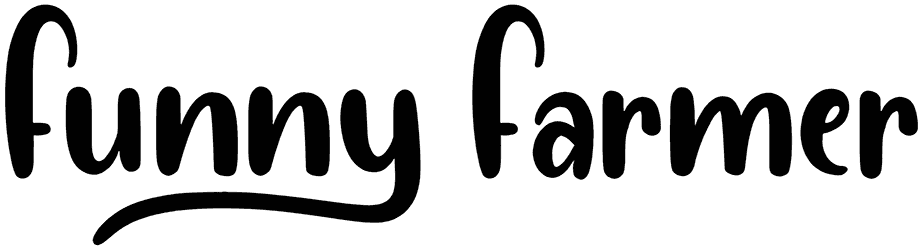
Funny Farmer Font
To achieve a cute and natural outcome that could capture a lot of attention, using a soft handwritten font like this one would be a perfect selection. The Funny Farmer font’s letters have a modern and delightful visual, and you can set it for your café signs. This script font, with its casual mood, is going to add a friendly vibe to your designs and make them memorable.